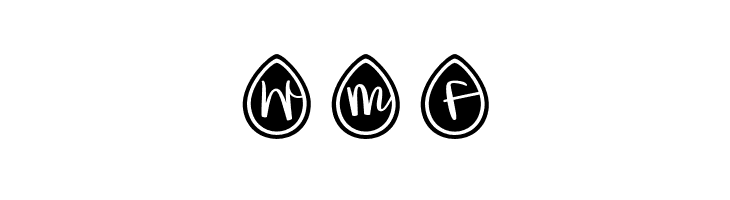
A bold, geometric font with a sporty, jersey-inspired design.
A bold, sports-themed decorative font with integrated athlete illustrations.
A bold, graffiti-inspired font with splatter effects for a dynamic look.
A playful script font with letters in teardrop shapes, offering a whimsical and decorative style.
A playful, floral-themed decorative font with whimsical elements.
A playful, wavy font with a spring-like, dynamic design.